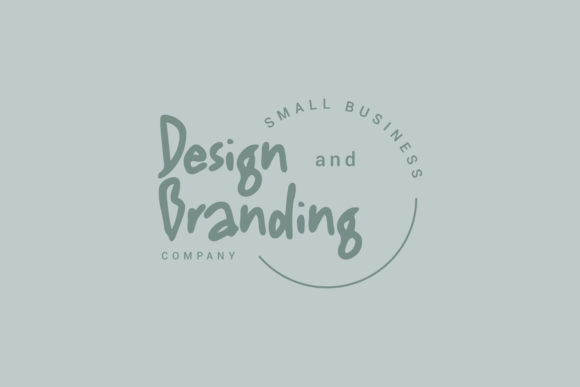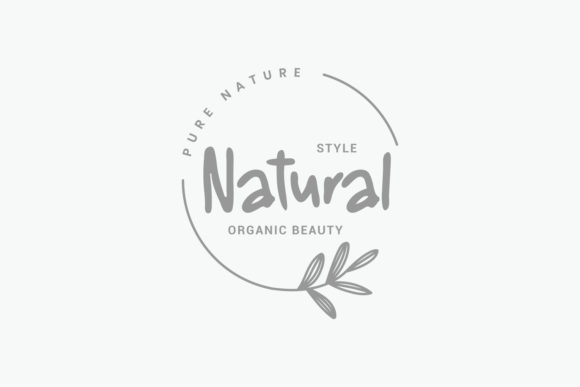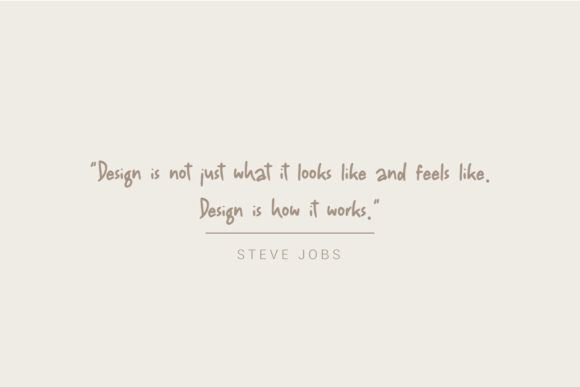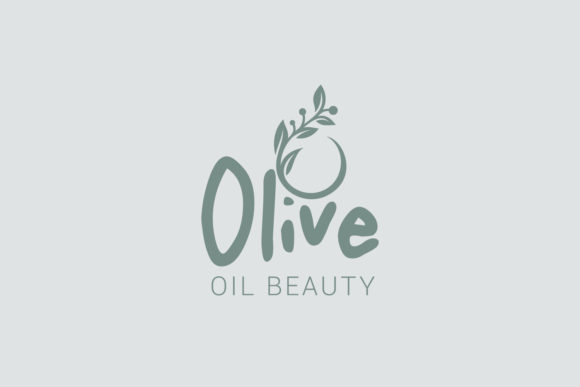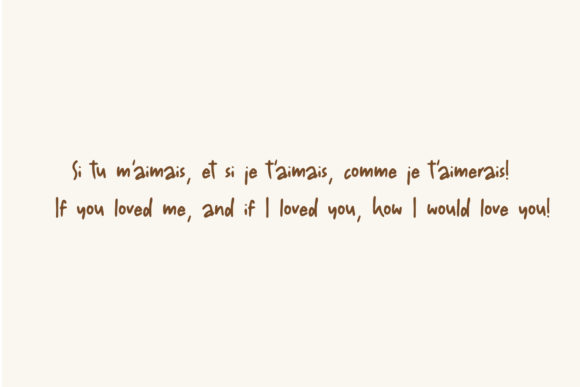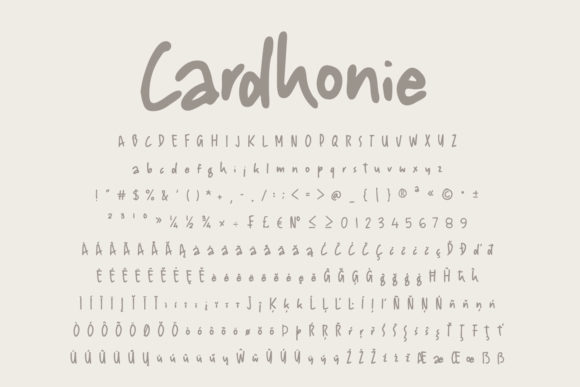
The Quest for the Perfect Font: Discovering Cardhonie
I still remember the design project that led me to Cardhonie. I was working on a branding project for a boutique bakery, and I needed a font that was both elegant and down-to-earth. I’d spent hours scouring font websites, but nothing seemed quite right. That was when I stumbled upon Cardhonie – a beautiful, handwritten font that instantly captured the warm and inviting feel I was looking for.
An Honest Review of Cardhonie
So, what makes Cardhonie so special? Let’s dive into the good stuff and a few quirks I’ve discovered.
What I Love About Cardhonie
• ✨ Cute and Elegant: Cardhonie strikes the perfect balance between being adorable and sophisticated. It’s got a charm that’s hard to resist.
• ✅ Readability: The font is incredibly easy to read, even at smaller sizes, making it perfect for body text or headings.
• ✅ Versatility: Whether you’re working on a branding project, a craft label, or a party invitation, Cardhonie adapts beautifully to different contexts.
While Cardhonie is an amazing font, there are a couple of things to keep in mind:
• ⚠️ Limited Character Set: Like many handwritten fonts, Cardhonie might not have an extensive character set. This could be a limitation if you need special characters or extensive language support.
• 🤔 Overuse of Swashes: While Cardhonie comes with beautiful swashes and stylistic alternates, using too many can make your text look cluttered. It’s best to use them sparingly for emphasis.
Similar Fonts or Alternatives to Cardhonie
The Backstory of Cardhonie
While the exact origins of Cardhonie might be shrouded in mystery, it’s clear that it was crafted with love and attention to detail. Imagine a designer, sitting with a pen and paper, aiming to create a font that feels both personal and polished. That’s Cardhonie – a labor of love meant to bring warmth and character to any project.
Font Name Cardhonie Font
Author Cititype
Q: Is Cardhonie suitable for body text?
A: Absolutely! Cardhonie is not only beautiful but also highly readable, making it a great choice for body text in many projects.
Q: Does Cardhonie support multiple languages?
A: The character set of Cardhonie might be limited compared to more extensive fonts. It’s best to check the font’s documentation or contact the creator for specific language support details.